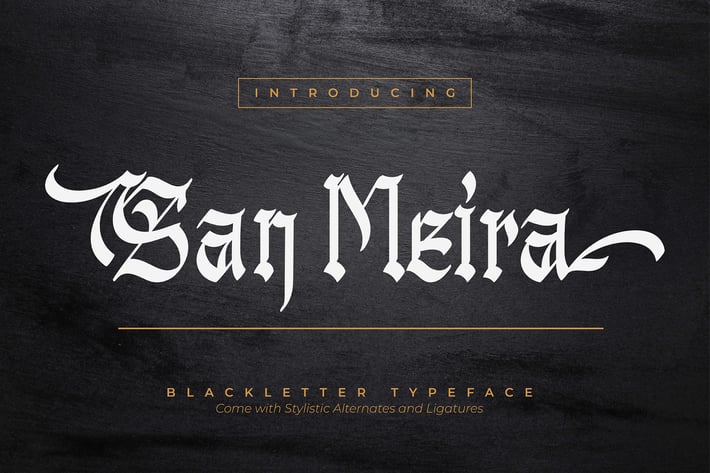
San Meira | Blackletter Typeface
San Meira | Blackletter Typeface with a calligraphy style, So beautiful on invitation like greeting cards, branding materials, business cards, quotes, posters, and more!